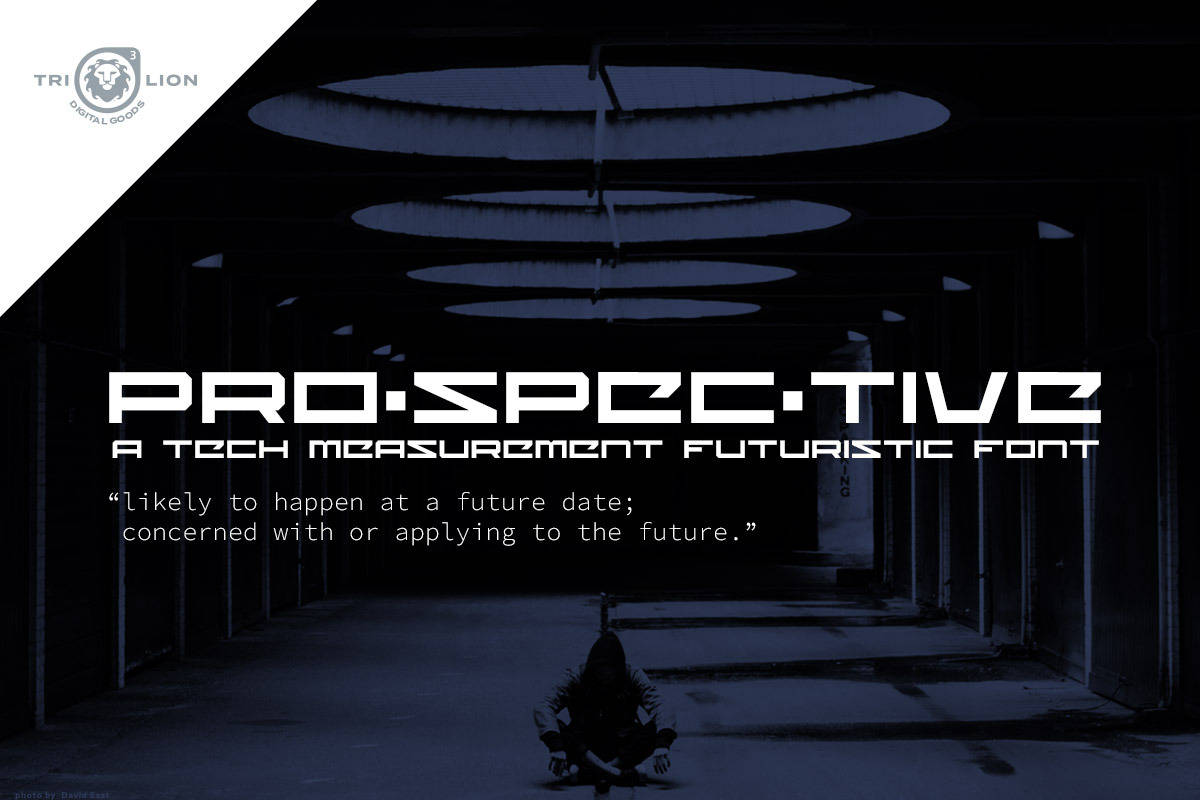
Prospective Font
Prospective Font by TriLion Digital Goods: A tech measurement FUTURISTIC FONT “likely to happen at a future date; concerned with or applying to the future.”
A hand made grid snapped math perfected font set.
NEW!! - We just added The Regular Base Font (Non extended), Semi-Condensed, AND Condensed versions with lowercase glyphs. All sets with both Capital and Lowercase glyphs! Now a total of 6 fonts in this growing group. We added a few more glyphs to the first three fonts as well. As we get traction on this product we will keep adding to it and are always looking for your thoughts. Thanks for supporting us!